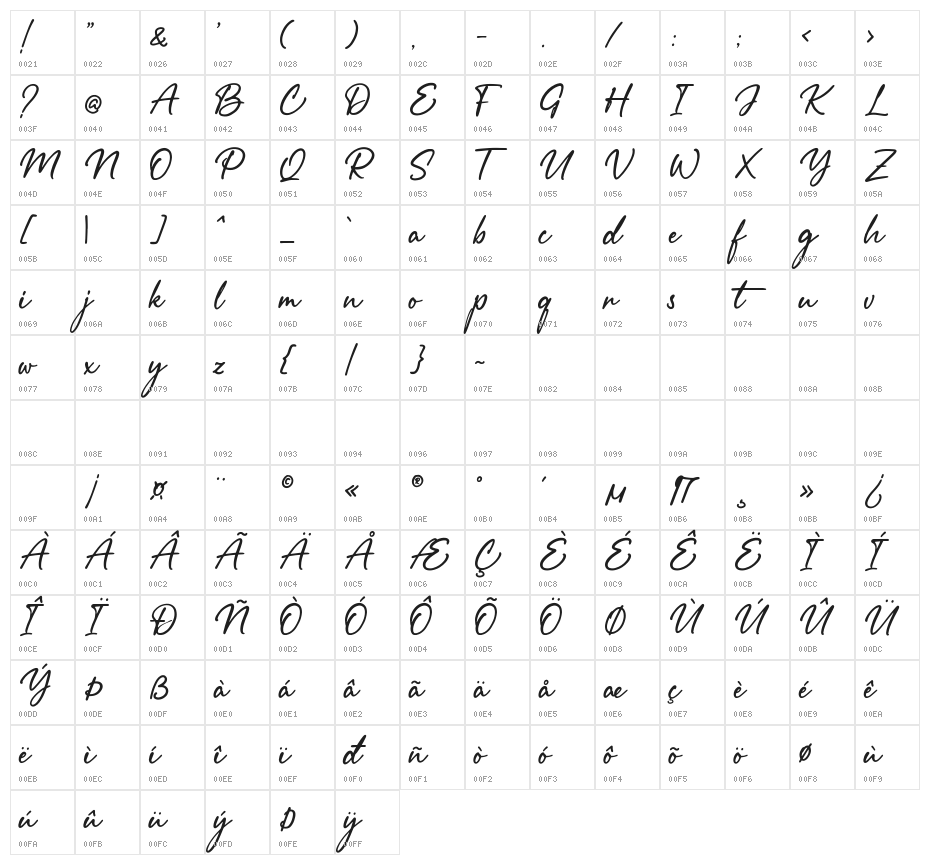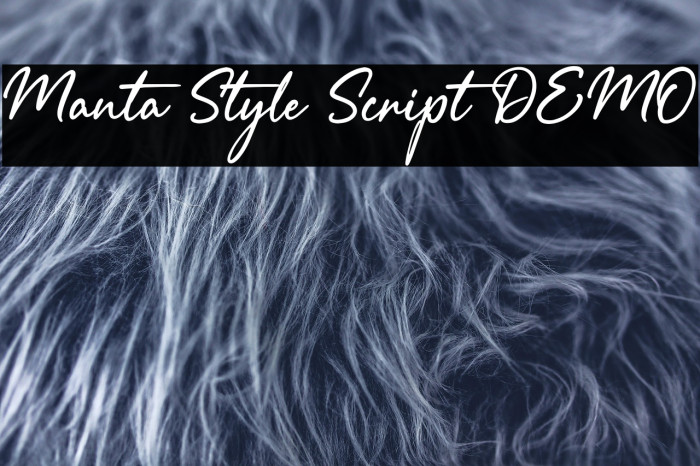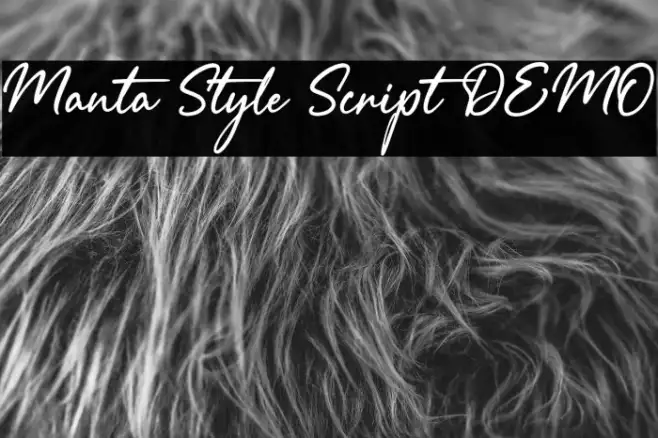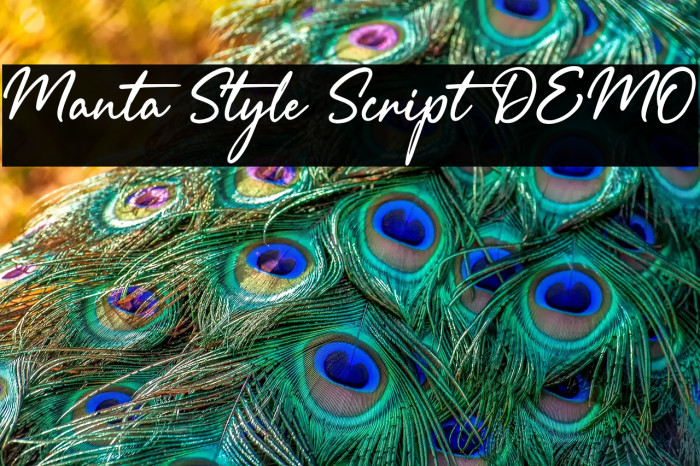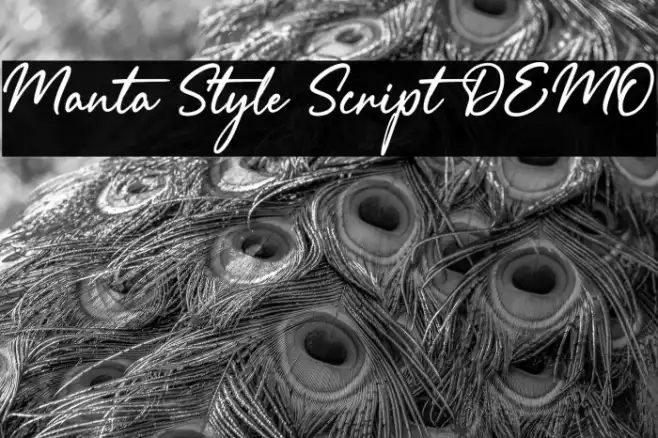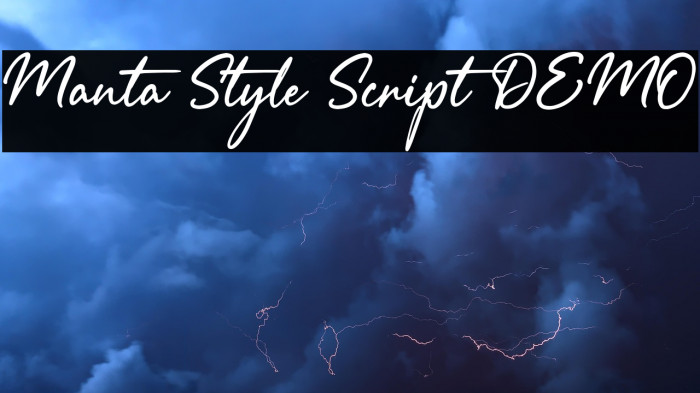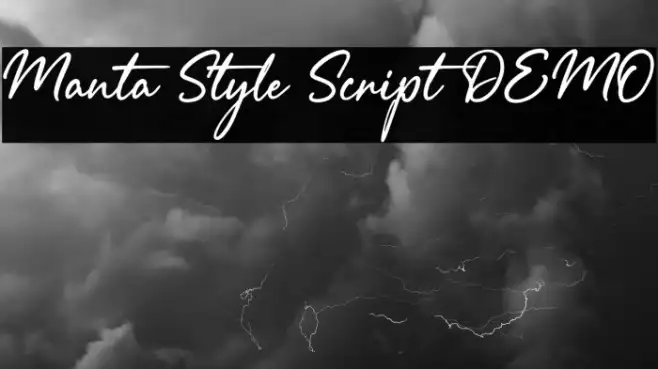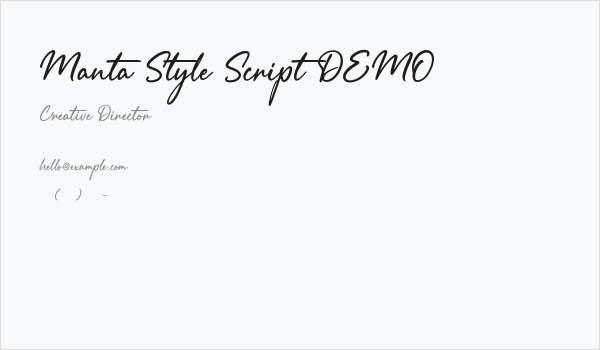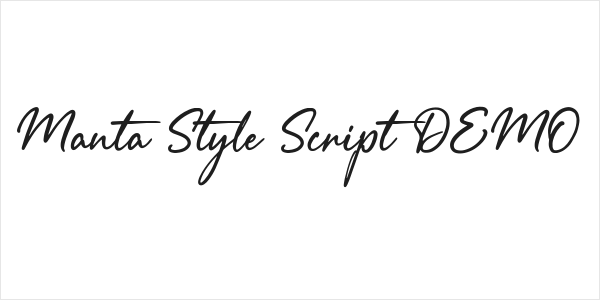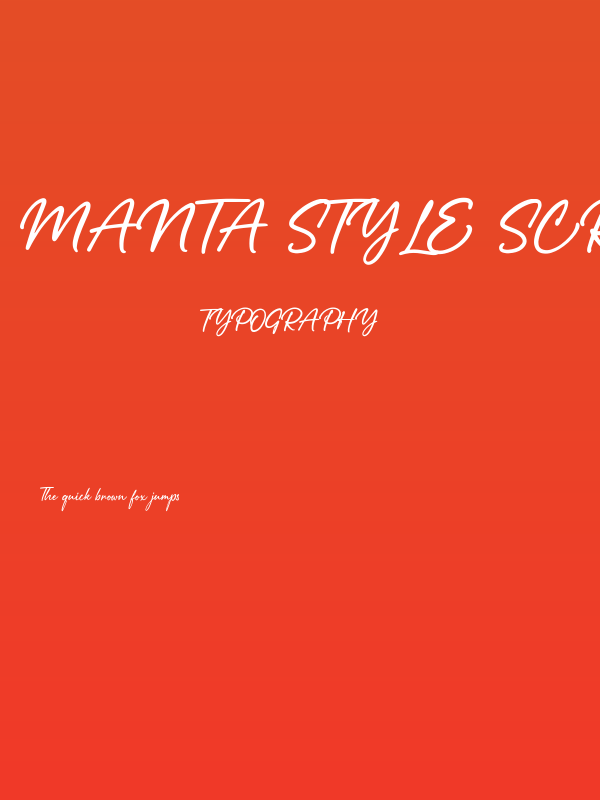
Manta Style Script DEMO Font
Manta Style Script DEMO Description
This script font exudes a dynamic and fluid style, characterized by its elegant, flowing strokes and cursive design. The uppercase letters are bold and slightly slanted, giving a sense of movement and grace. The lowercase letters maintain a consistent flow, with smooth connections between characters, enhancing readability while retaining a handwritten feel. The numerals and special characters are crafted with the same attention to detail, ensuring a cohesive look across all text. This font is perfect for projects that require a personal touch, such as invitations, greeting cards, or branding materials.